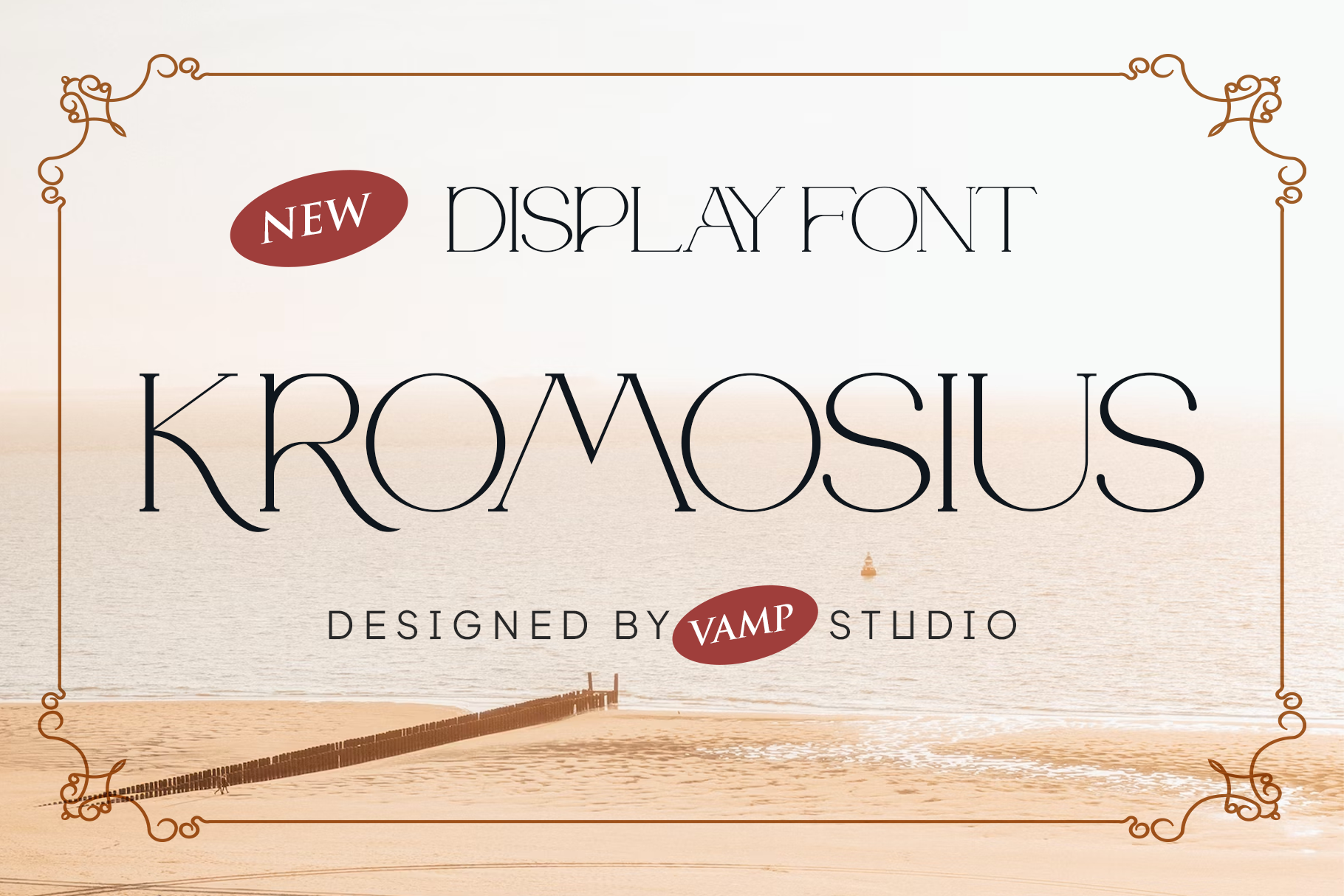
Kromosius Playful Display Font
Kromosius is a modern display typeface. This font looks very simple, clean, and elegant. Specially designed by skilled hands makes this font is the perfect fit for all your big projects.
Kromosius is perfect for branding projects, logo, wedding designs, social media posts, advertisements, product packaging, product designs, label, photography, watermark, invitation, stationery and any projects that need handwriting taste.